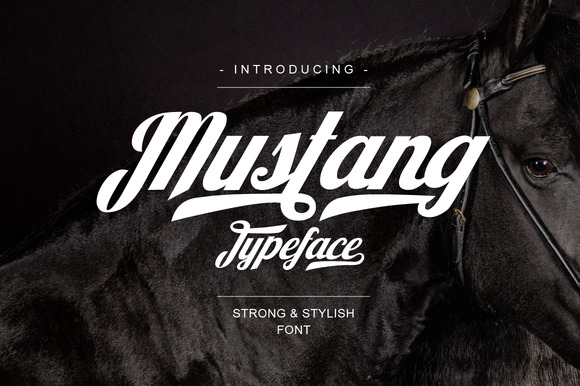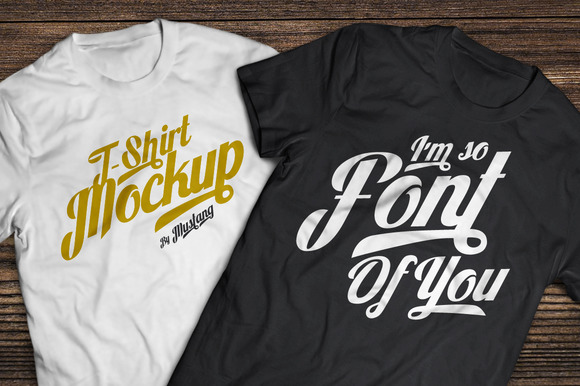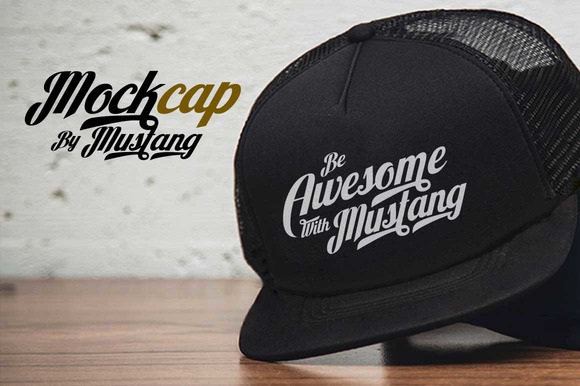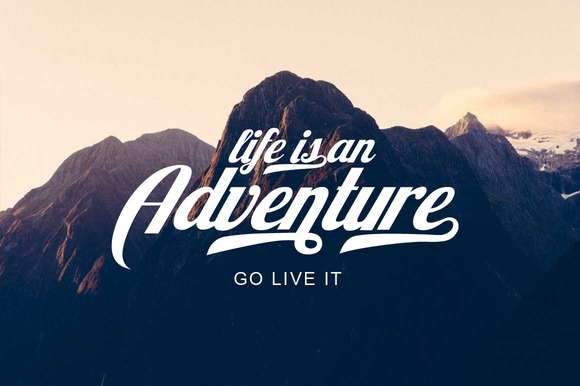
Mustang
Mustang Script Font
Mustang is a strong and tough looking style typeface. Suits best for logo, vintage / classic designs, headline, letterhead, fashion designs, etc. Each files contains: uppercase, lowercase, numerals, basic punctuations, trails and some alternate characters.